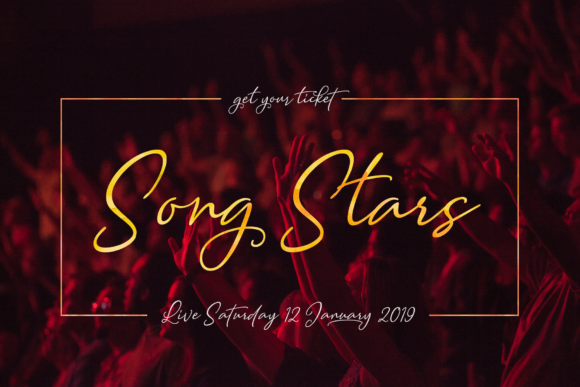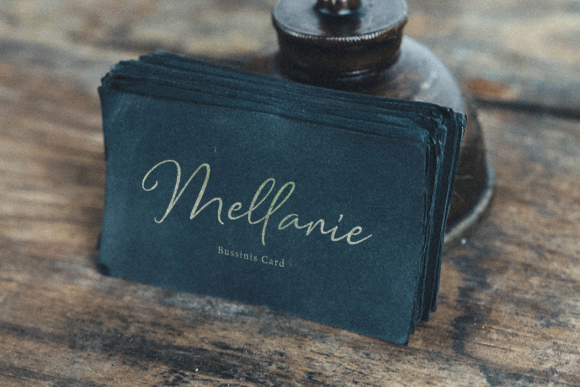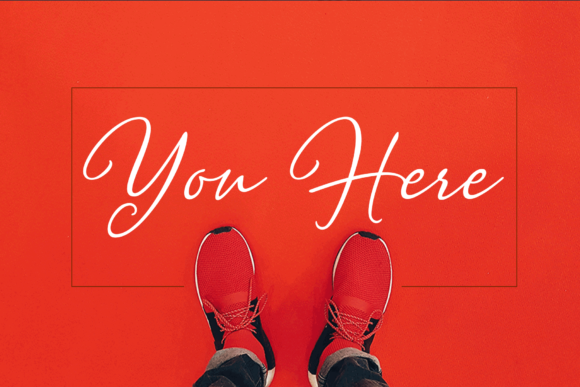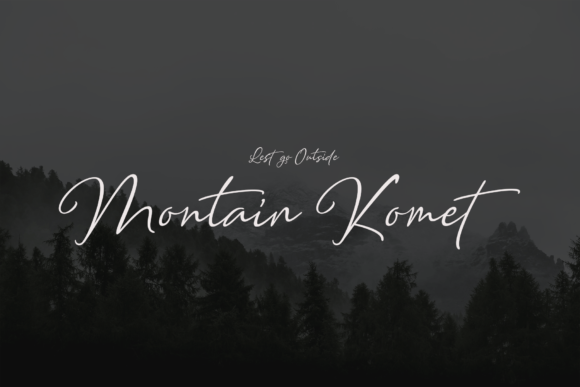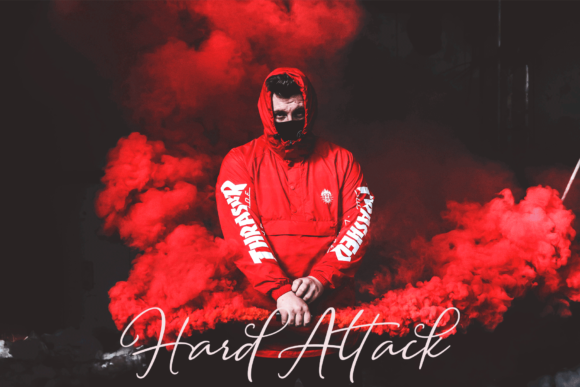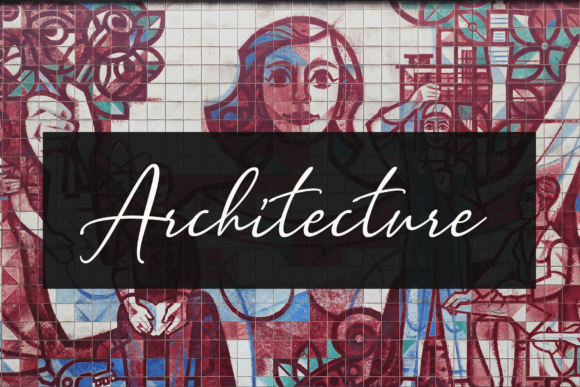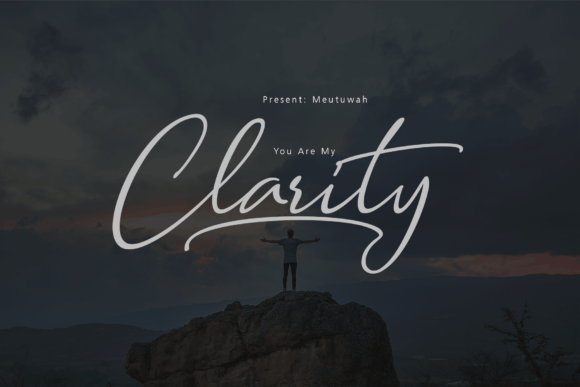
Introducing Clarity Font: Elevate Your Designs with Elegance and Sophistication
The Clarity Font is a stunning calligraphy script that has been making waves in the design community. With its smooth lines and classic touch, this font is perfect for designers and crafters looking to add a touch of elegance and sophistication to their work. Whether you’re creating logos, headlines, invitations, badges, or any other design element, Clarity Font is an excellent choice.
What Makes Clarity Font Stand Out?
Clarity Font boasts a unique blend of classic and modern elements, making it a versatile and stylish addition to any design project. Its smooth lines and flowing curves give it a sense of movement and fluidity, while its classic touch ensures that it remains timeless and sophisticated. This font is perfect for designers who want to create beautiful, high-end designs that stand out from the crowd.
Clarity Font is an incredibly versatile font that can be used for a wide range of design projects. Here are just a few ideas to get you started:
• Logos: Create a stunning logo for your business or brand with Clarity Font. Its elegant and sophisticated design makes it perfect for companies that want to convey a sense of luxury and refinement.
• Headlines: Add a touch of glamour to your headlines with Clarity Font. Its smooth lines and flowing curves make it perfect for creating eye-catching titles and headings.
• Invitations: Create beautiful invitations for weddings, parties, and other special events with Clarity Font. Its classic touch and elegant design make it perfect for formal and informal events alike.
• Badges: Design stunning badges and labels with Clarity Font. Its bold and sophisticated design makes it perfect for creating eye-catching badges that stand out.
Why Choose Clarity Font?
There are many fonts to choose from, but Clarity Font stands out from the rest. Here are just a few reasons why:
• Unique Design: Clarity Font has a unique and stylish design that sets it apart from other fonts. Its smooth lines and classic touch make it perfect for designers who want to create beautiful and sophisticated designs.
• Versatility: Clarity Font is incredibly versatile and can be used for a wide range of design projects. Whether you’re creating logos, headlines, invitations, or badges, this font is an excellent choice.
Tips for Using Clarity Font
Here are a few tips for using Clarity Font in your designs:
• Pair it with Other Fonts: Clarity Font looks great when paired with other fonts. Try pairing it with a bold sans-serif font for a striking contrast.
• Experiment with Colors: Clarity Font looks great in a variety of colors. Experiment with different colors and combinations to find the one that works best for your design.
• Play with Sizes: Clarity Font looks great in a variety of sizes. Experiment with different sizes to find the one that works best for your design.
Clarity Font is a stunning calligraphy script that is perfect for designers and crafters looking to add a touch of elegance and sophistication to their work. With its smooth lines, classic touch, and versatility, this font is an excellent choice for a wide range of design projects. Whether you’re creating logos, headlines, invitations, badges, or any other design element, Clarity Font is sure to elevate your designs to the next level.